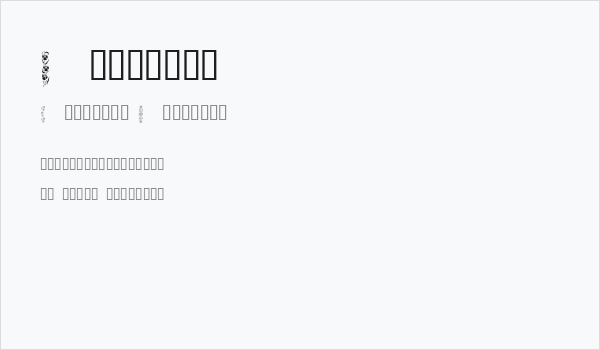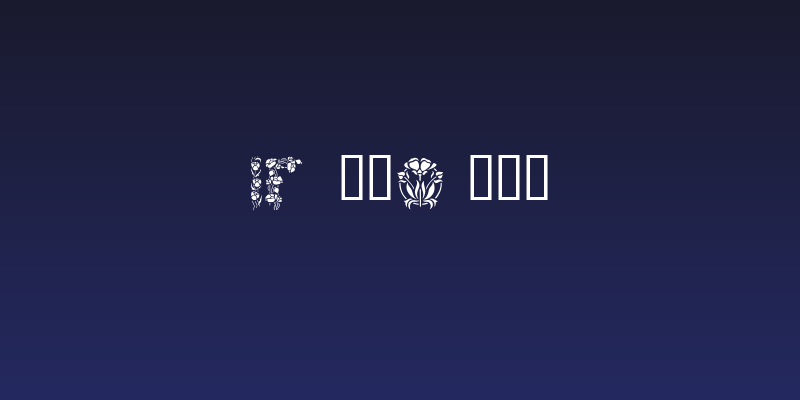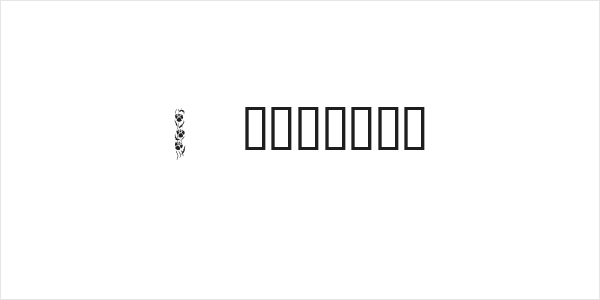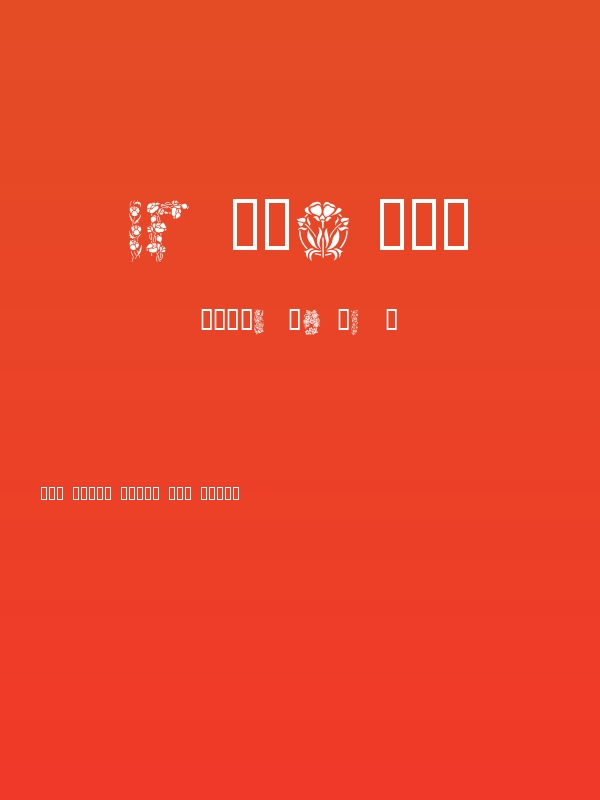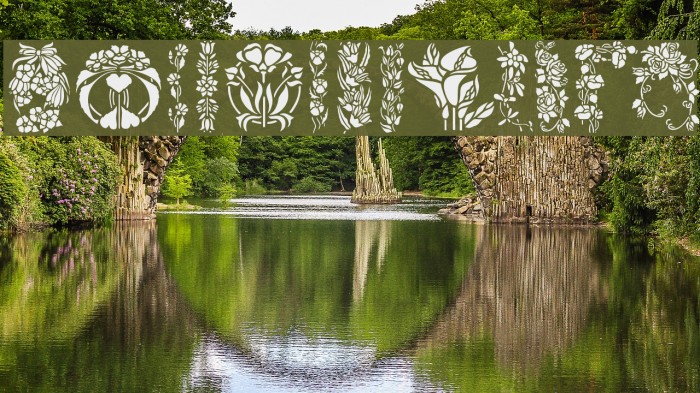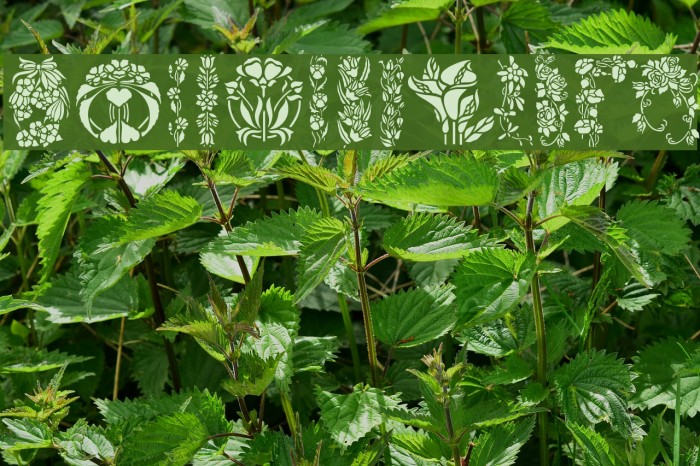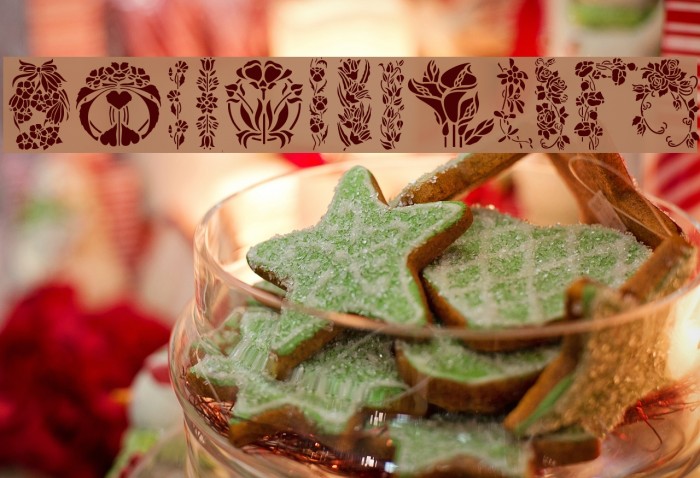
Flowers4 Font
This decorative font features intricate floral designs integrated into each character, creating a unique and artistic appearance. Each letter is adorned with detailed floral patterns, making it ideal for projects that require a touch of elegance and nature-inspired aesthetics. The characters are highly stylized, with each letterform incorporating various flower motifs, giving the font a distinct and ornamental look. The overall design is both creative and visually appealing, suitable for artistic and decorative purposes.
| Use Case | Logos, Invitations, Decorative Text |
| Proposed Projects | Ideal for wedding invitations, greeting cards, decorative posters, and branding projects that require a touch of elegance and nature-inspired aesthetics. |